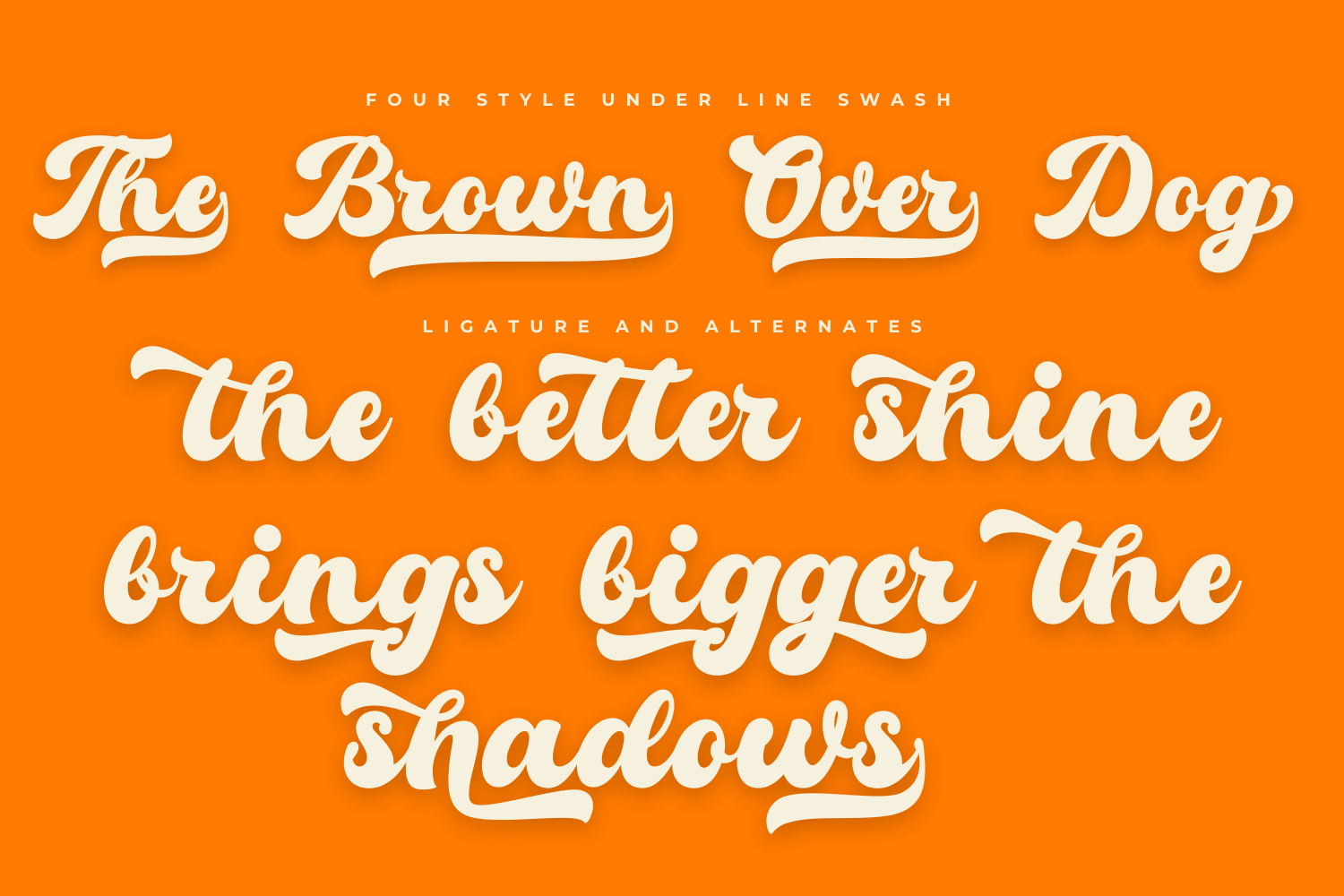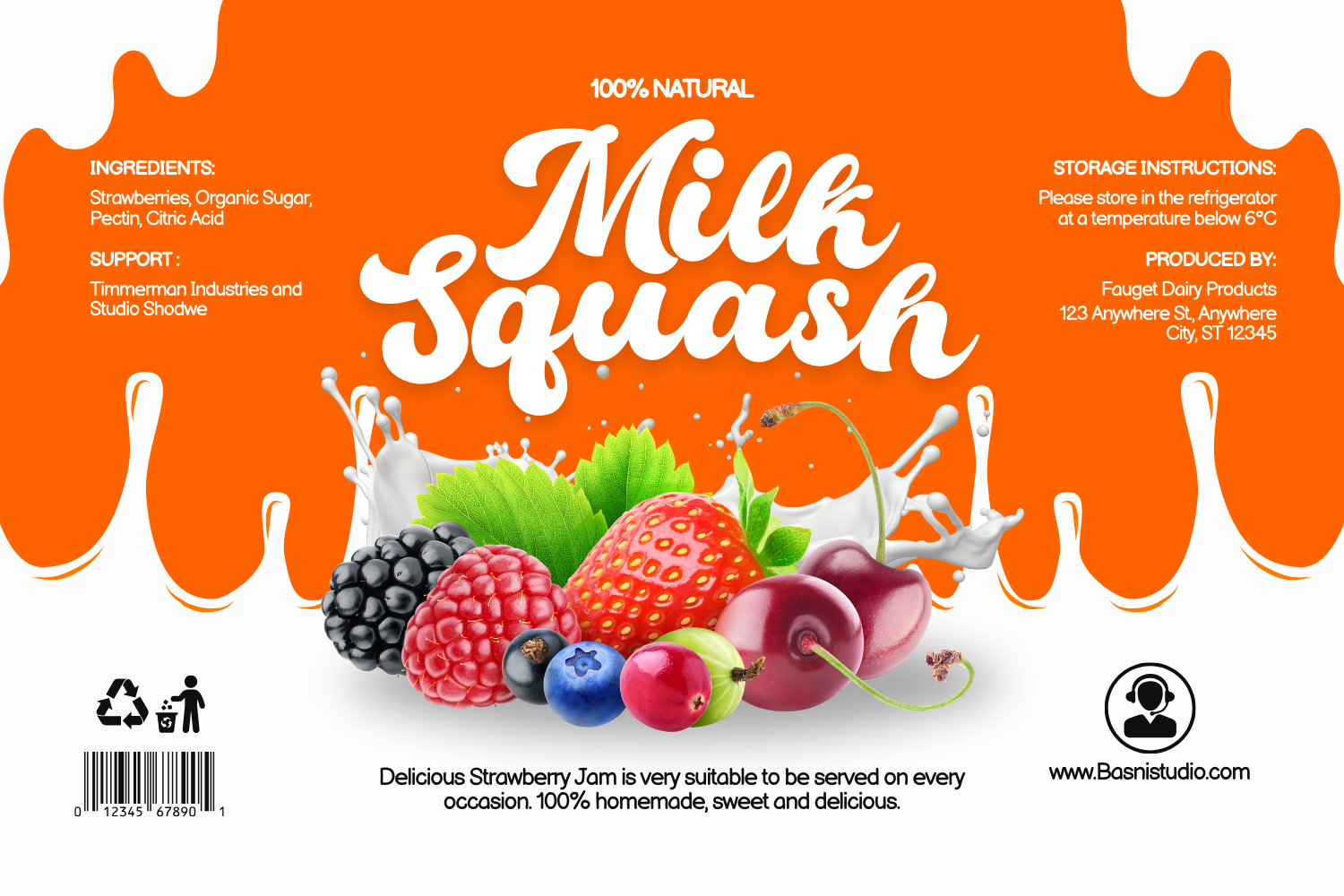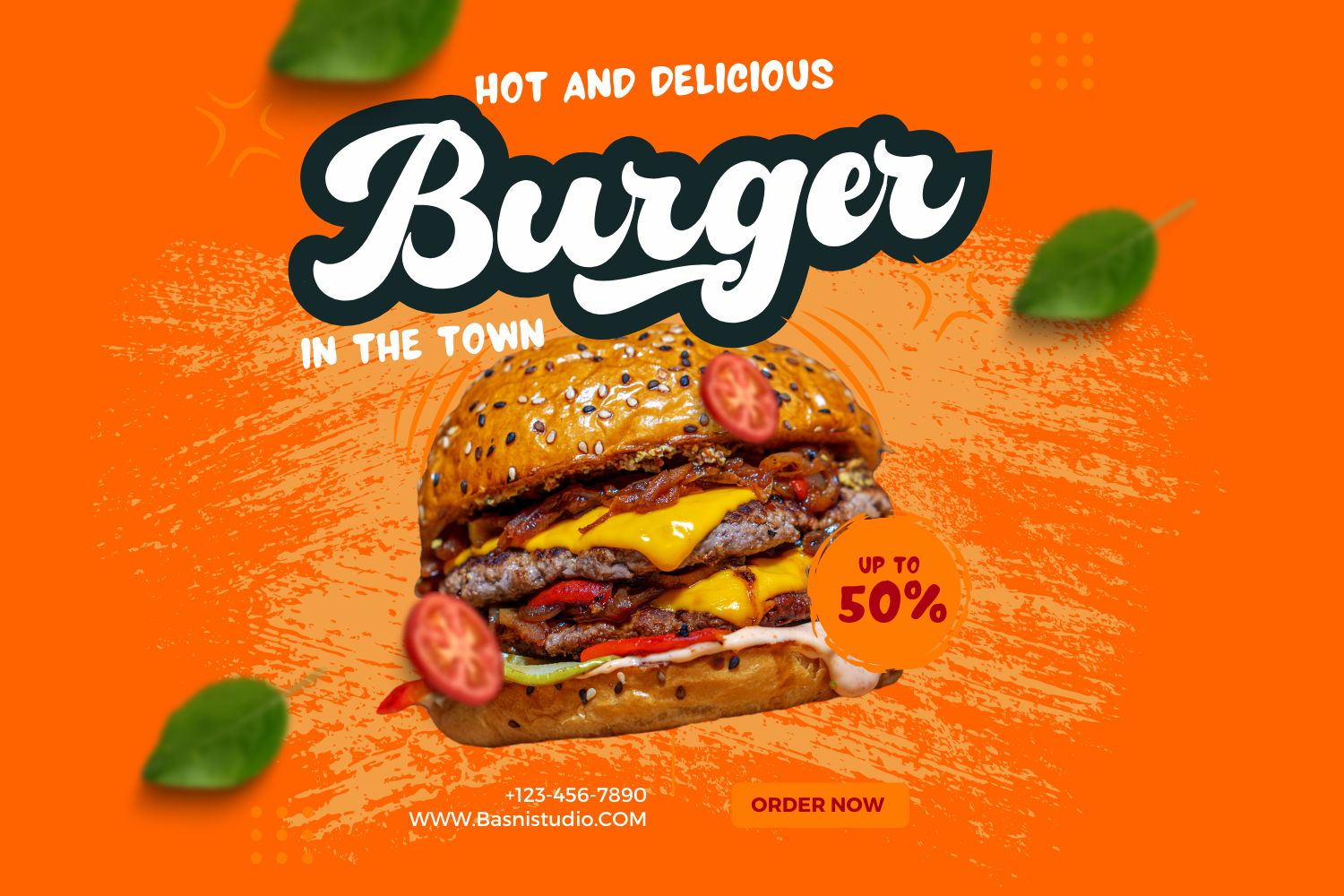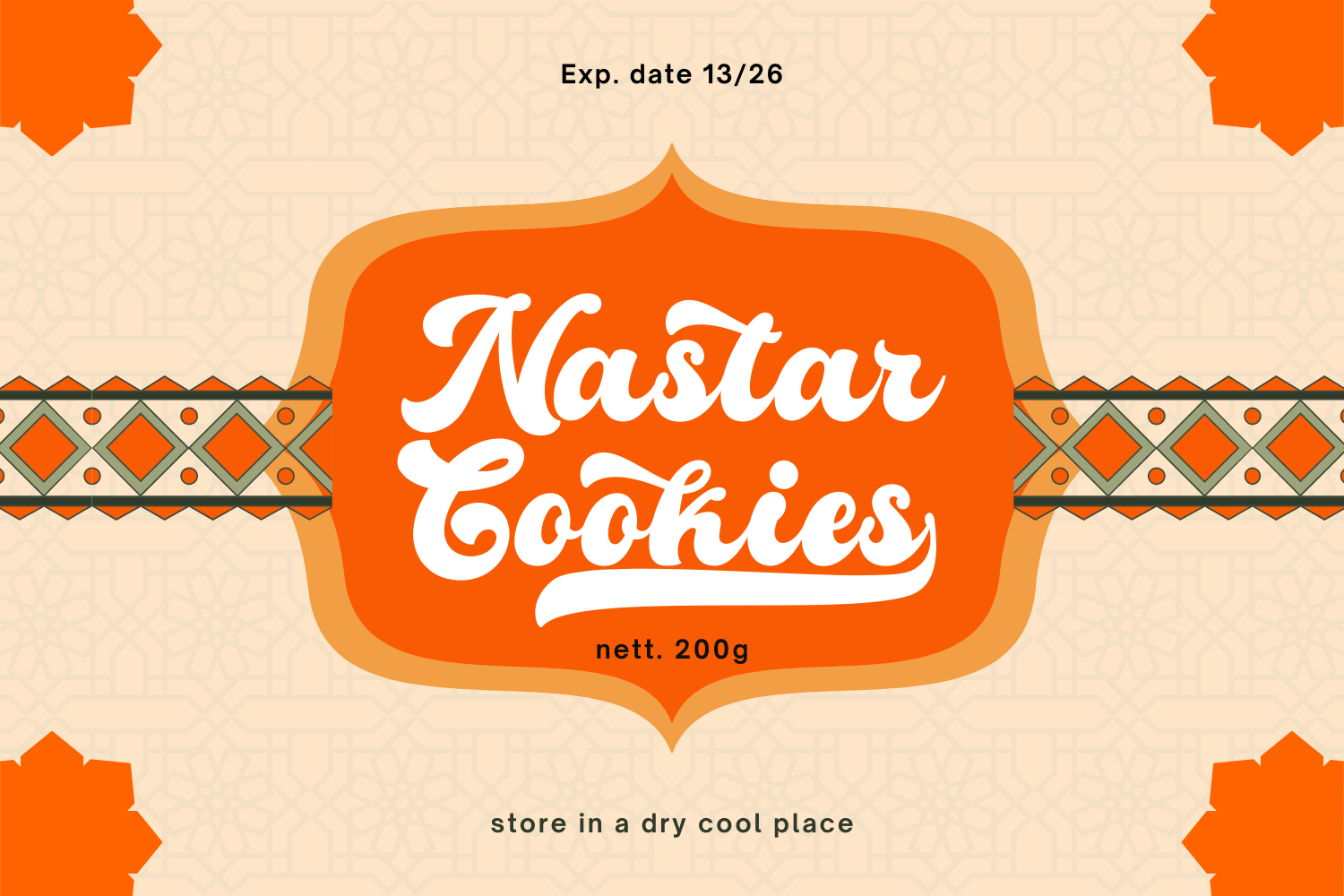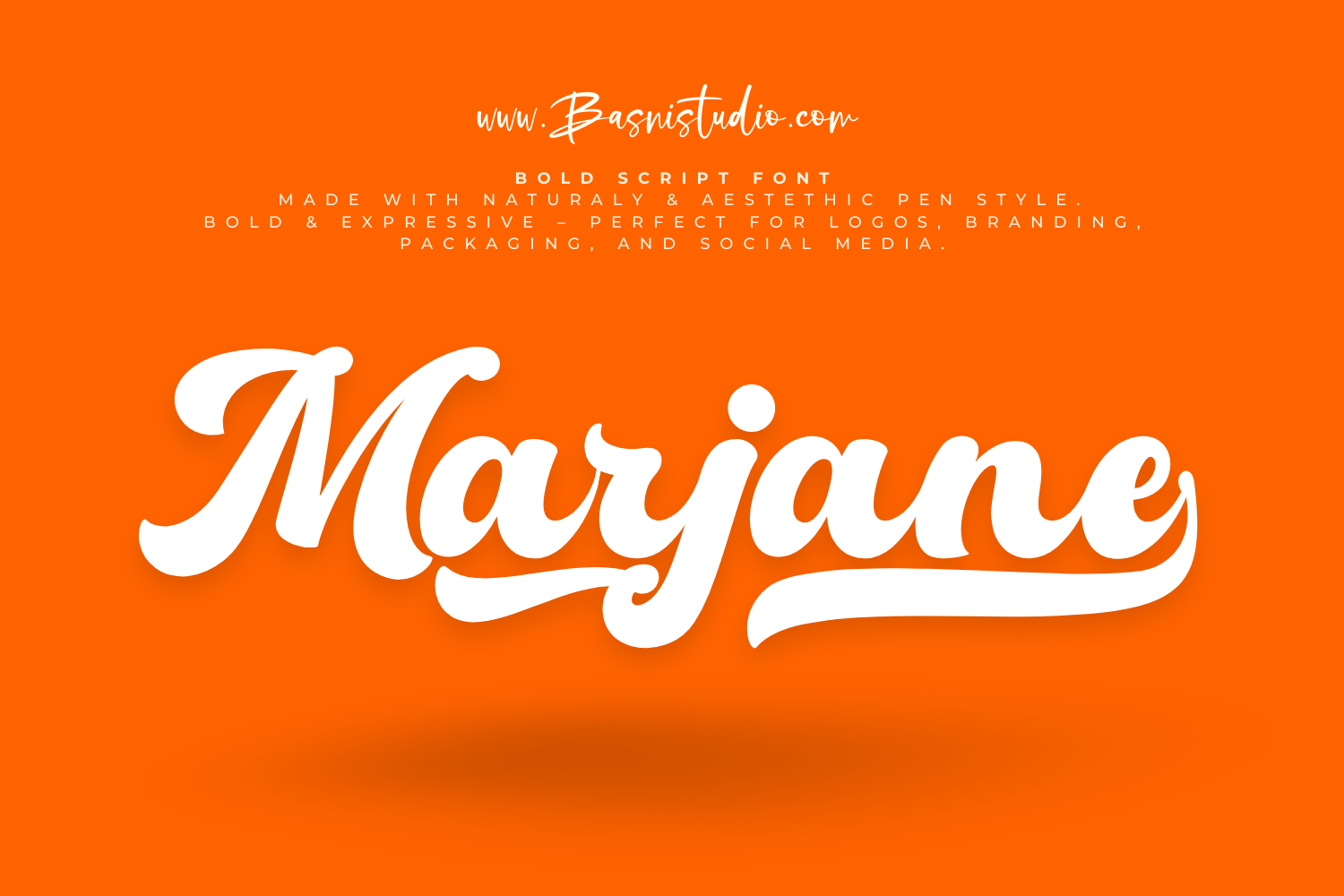
Marjane Font
Marjane Font is a graceful and contemporary typeface that combines elegance with artistic charm. Its flowing curves and refined strokes create a sense of sophistication, making it ideal for fashion branding, editorial design, and luxury invitations. With a delicate balance of modernity and timeless beauty, Marjane Font brings a touch of class and personality to any creative project.